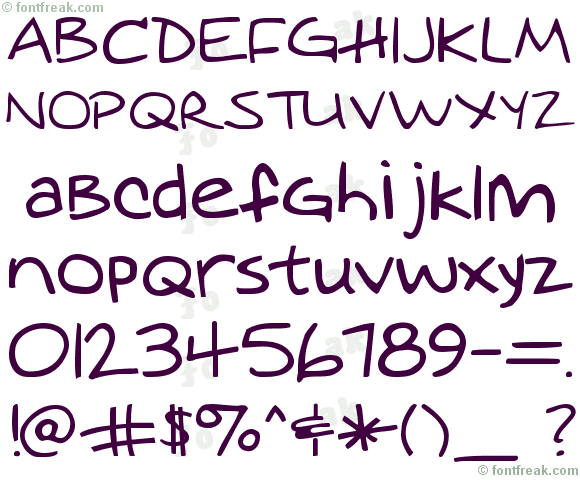
augie
The Augie font, created by Steven J. Lundeen in 1997, is a captivating display typeface that stands out with its playful and whimsical character. This font embodies a unique handwritten style, characterized by its slightly irregular strokes that evoke a sense of casual elegance. The stroke weight is relatively consistent, offering a balanced visual appeal, while the gentle curves and loops add a friendly, approachable quality to the design. The letterforms feature a moderate contrast, making them easily legible yet artistically intriguing, which enhances its versatility across various applications.
Ideal for creative projects, the Augie font is particularly well-suited for wedding invitations, where its charming aesthetic can convey a sense of joy and celebration. Additionally, it works beautifully for children's book covers, capturing the imagination of younger audiences with its fun, bouncy letters. Restaurant menus can also benefit from Augie's inviting design, as it adds a touch of personality that engages diners. Graphic designers looking to create vibrant marketing materials will find this font an excellent choice for flyers and posters, as it draws attention while maintaining readability. The target audience for Augie includes graphic designers, small business owners, and content creators seeking to add a distinctive flair to their work.
What truly sets the Augie font apart is its ability to blend a lighthearted vibe with practical usability. Its unique character allows it to stand out in a crowded market of typefaces, making it a valuable addition to any font library. For those interested in enhancing their projects with this delightful typeface, the Augie font free download provides an excellent opportunity to experiment with its unique charm and versatility.